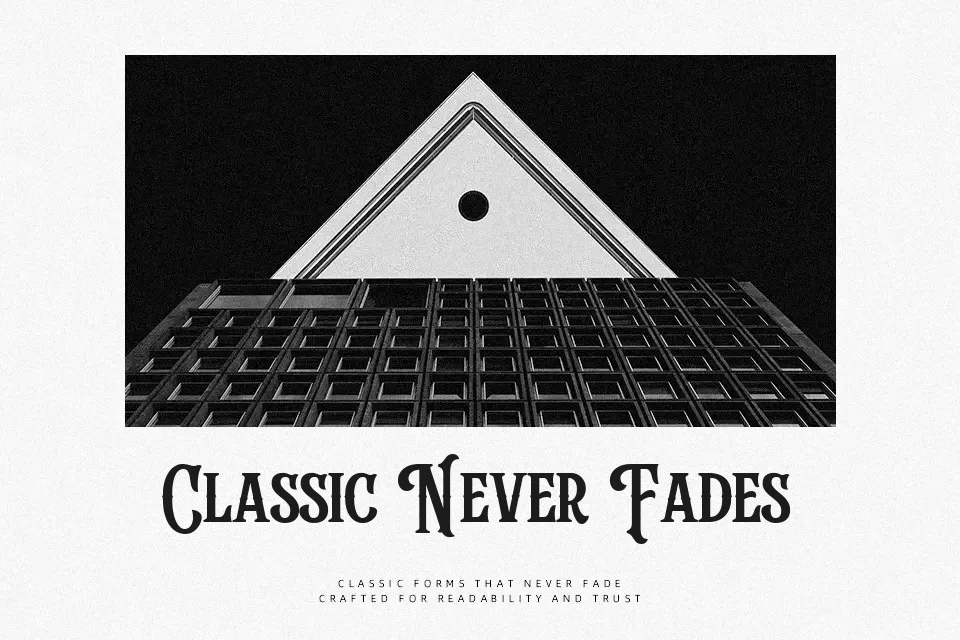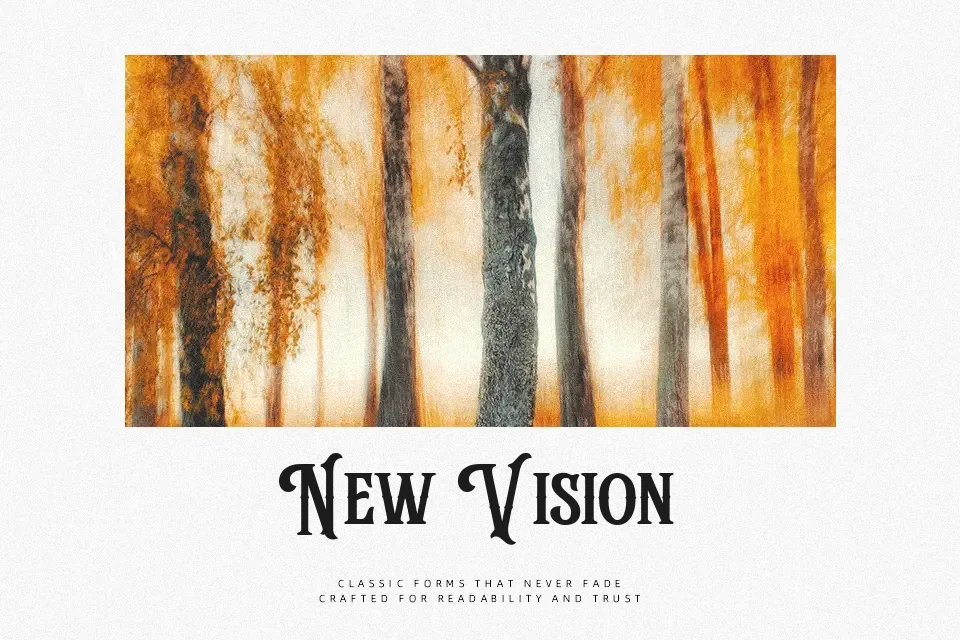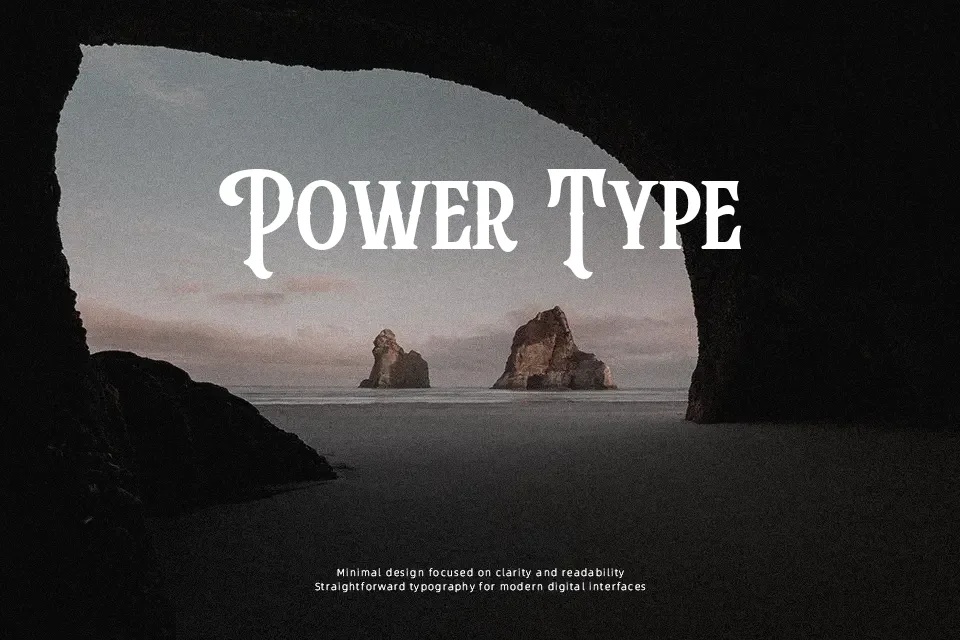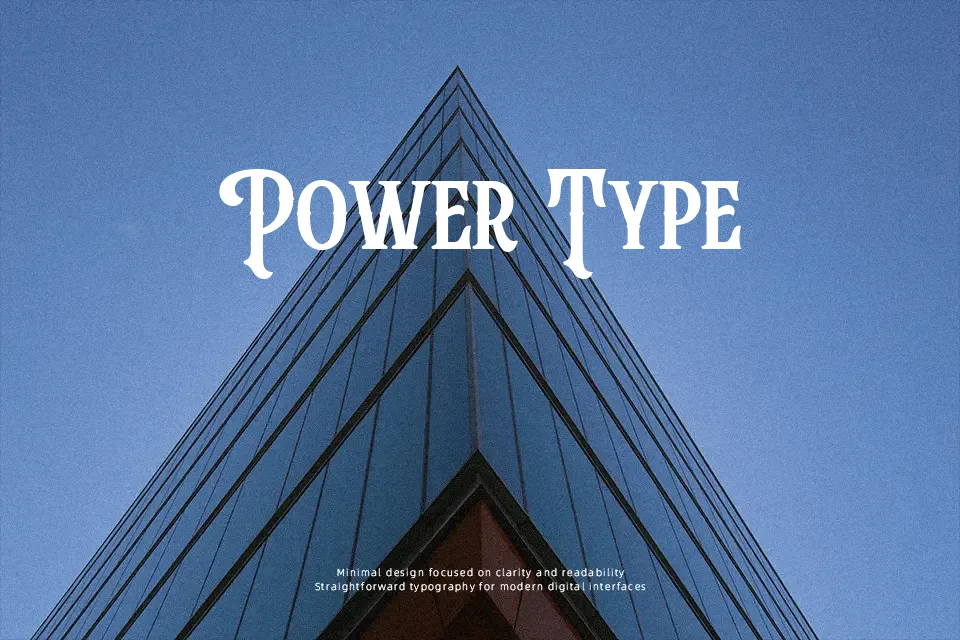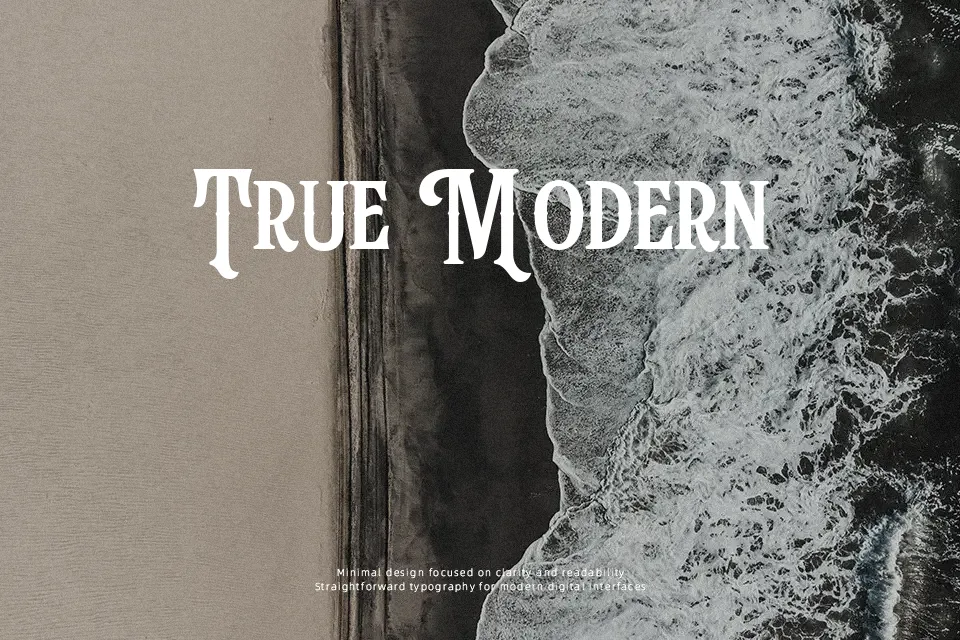
Stanford Breath Font
Designed by Arterfak Project
Stanford Breath Font showcases a decorative Victorian construction marked by prominent stroke contrast, teardrop curves, and pronounced rounded serifs. The letterforms feature an all-caps structure with balanced kerning that ensures strong headline impact in vintage badge layouts, craft packaging, and signage. Medium spacing keeps individual glyphs distinct across mid-size print applications, though the dense ornamental detailing reduces clarity when scaled down to smaller captions. For continuous reading or dense editorial text, the heavy decorative flourishes overwhelm line flow and hinder paragraph comprehension. This typeface functions most reliably when applied to brief display phrases where bold historic character enhances overall brand identity.
vintage beverage packaging, craft brewery logos, retro event posters, merchandise apparel graphics
long paragraph text, mobile app body copy, dense editorial spreadsheets